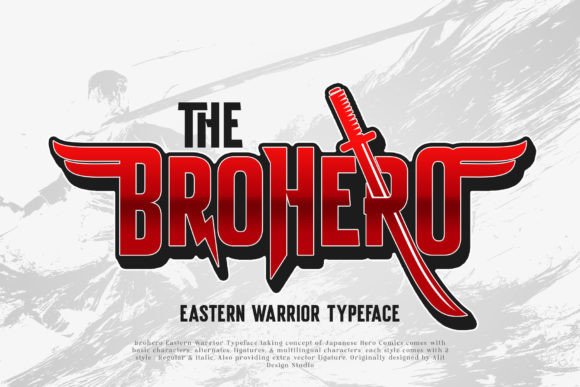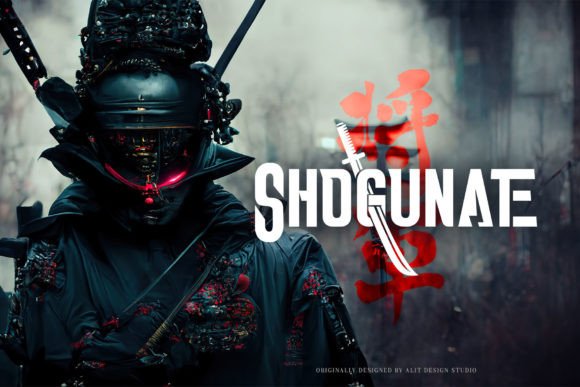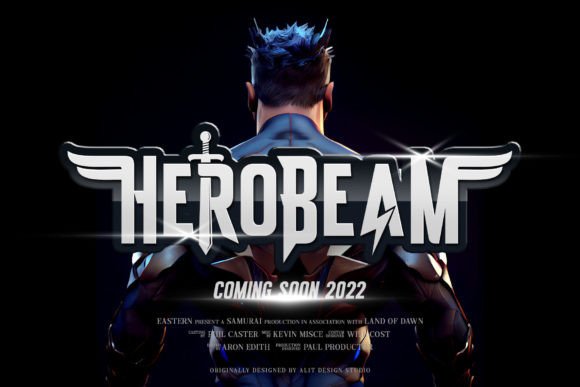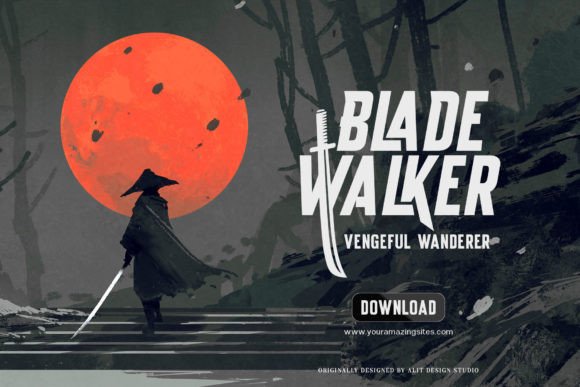
Brohero Font: Bold Display Font for Heroic Titles & Logo Design
About the Brohero Font
Introducing the Brohero Font, a beautifully crafted typeface designed to elevate your creative projects. The Brohero font is inspired by action movie posters with the theme of war or knights in the Japanese Samurai. The bold character of The Brohero font is perfect for making hero movie titles, game titles, logotypes, t-shirt designs, and so on with heroic themes.
Apart from the regular font, the Brohero also has an italic style which makes the design more dynamic and cool. The Brohero font has alternatives that you can combine between swashes and symbols that have the theme of heroes and war. Besides that, this font is PUA encoded, which means you can access all of the glyphs and swashes with ease!
Brohero Font Usage Examples
Brohero Font Example